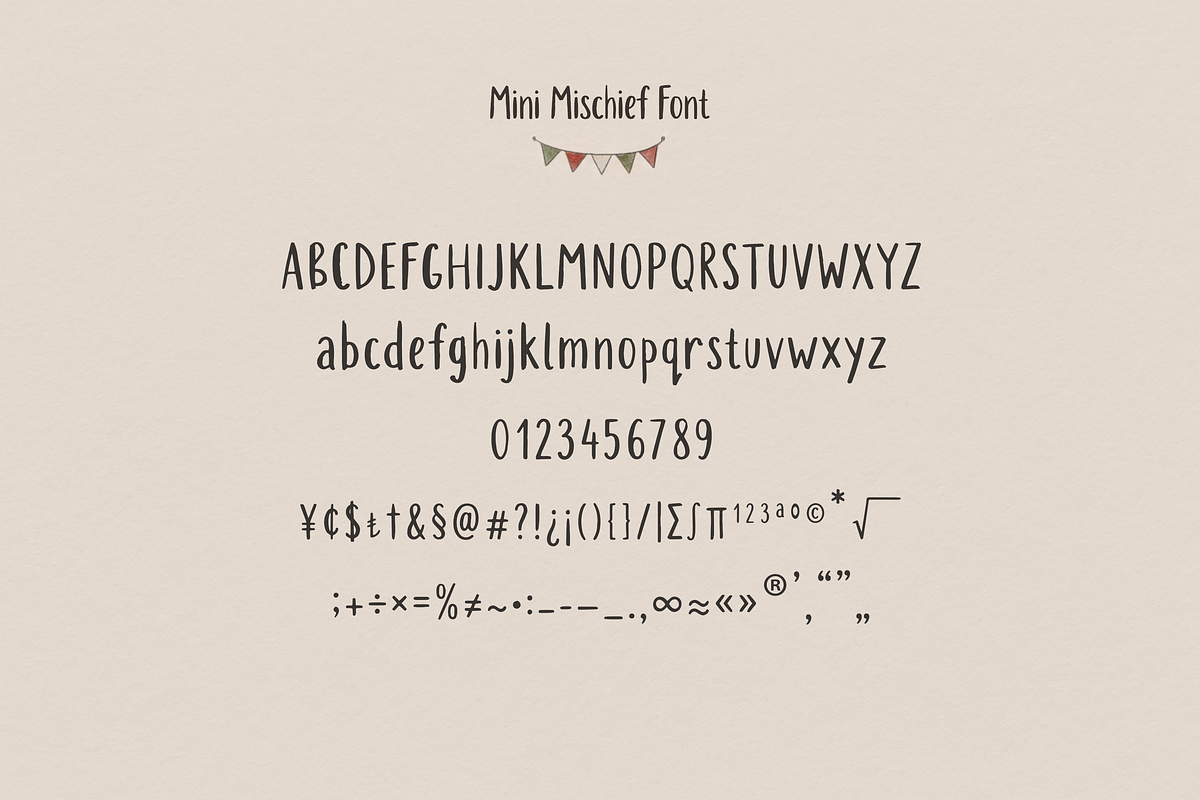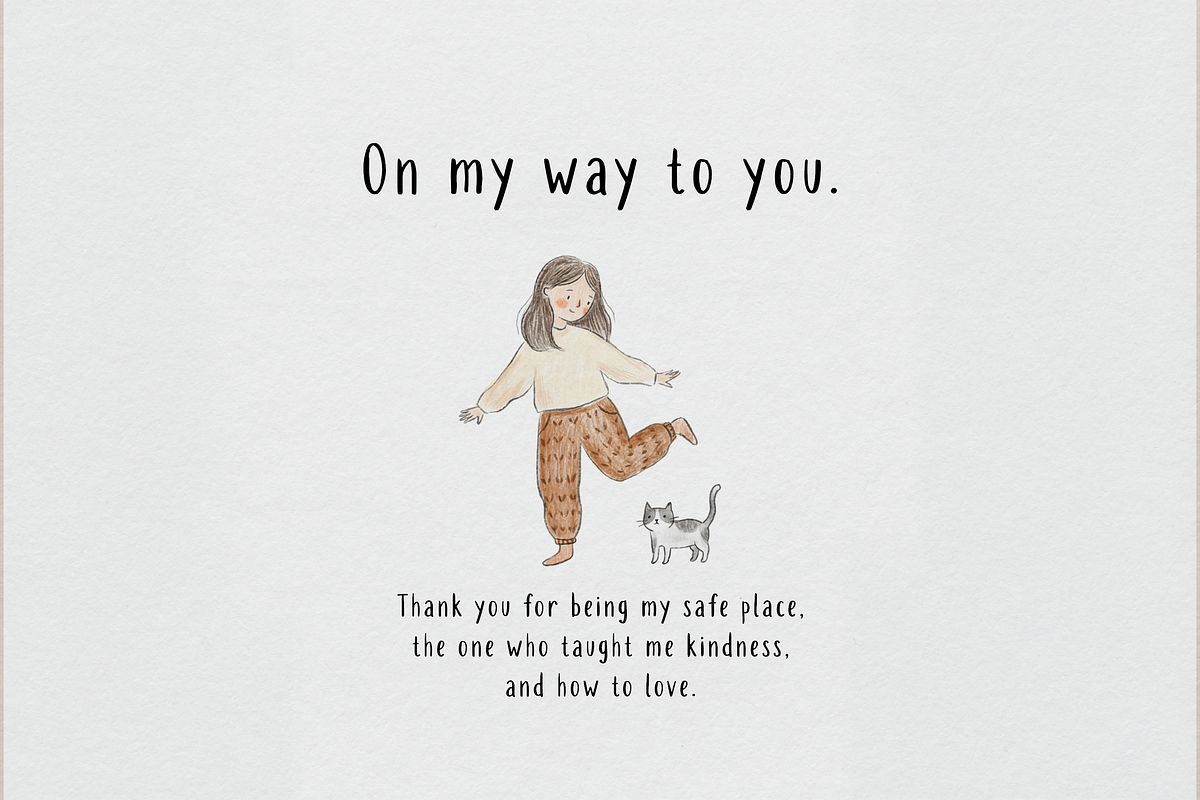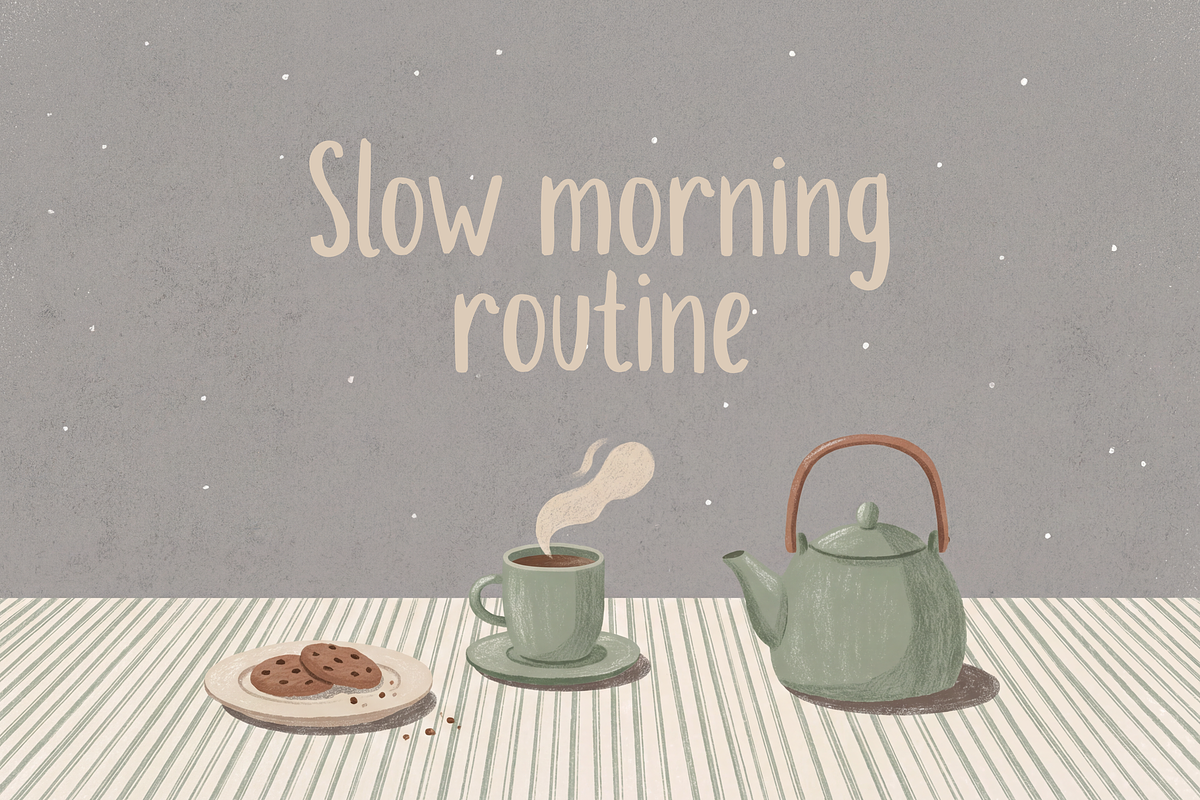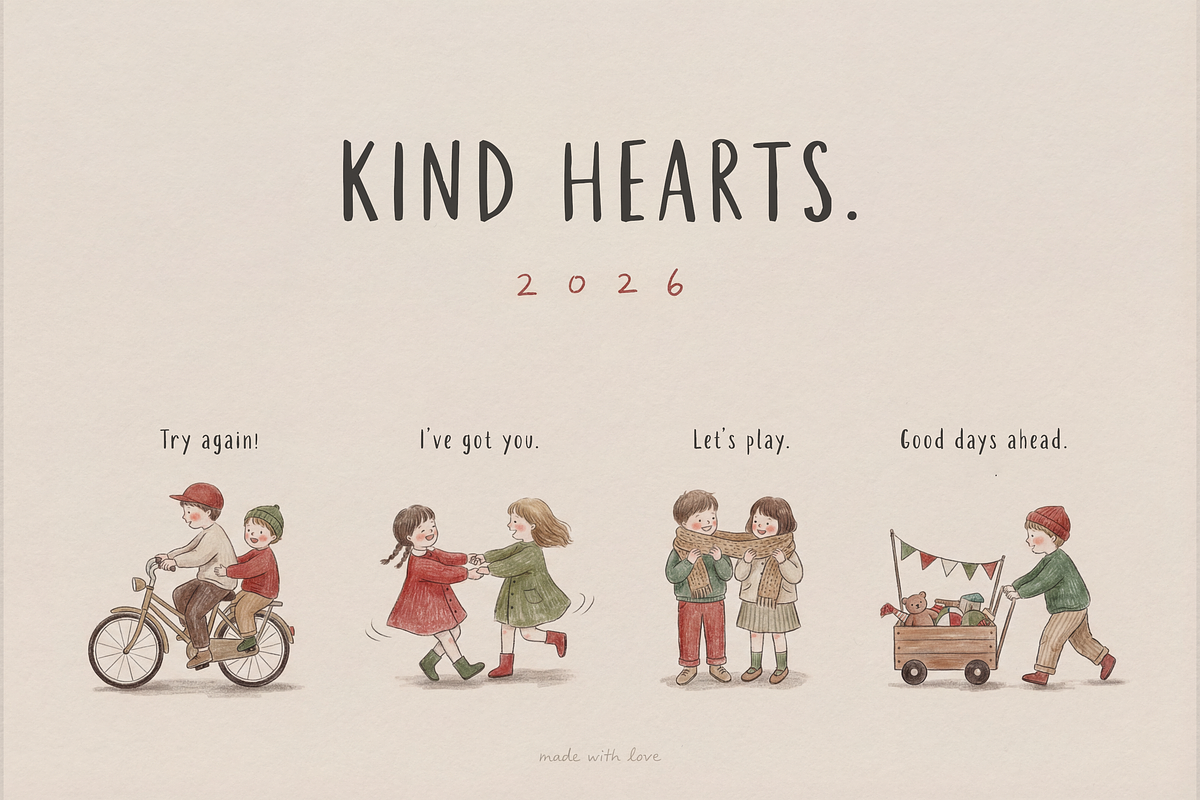
Mini Mischief | Hand-Drawn Font
Mini Mischief is a happy little hand-drawn font made to feel like real marker lettering — cozy, playful, and just imperfect enough to be charming. It brings that handmade warmth to your designs, like a friendly note on a fridge or a cute label on a gift.
It’s perfect when you want your work to feel welcoming, personal, and fun — without losing readability. Use it for stickers, kids projects, journaling pages, packaging, greeting cards, quotes, invitations, and social media.
- Basic Latin: A–Z, a–z
- Numbers: 0–9
- Punctuation & symbols
Works great for:
stickers • planners • cozy branding • labels • classroom materials • greeting cards • scrapbook • packaging • posters • quotes